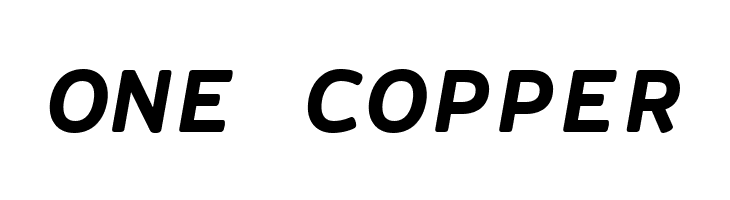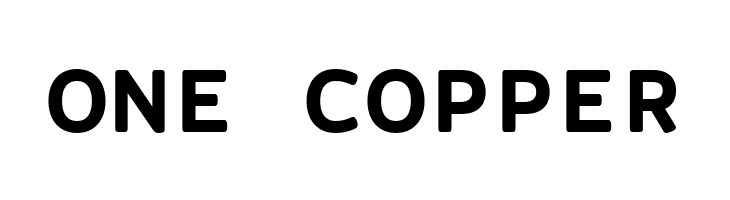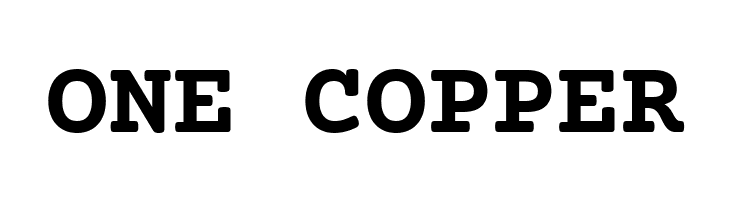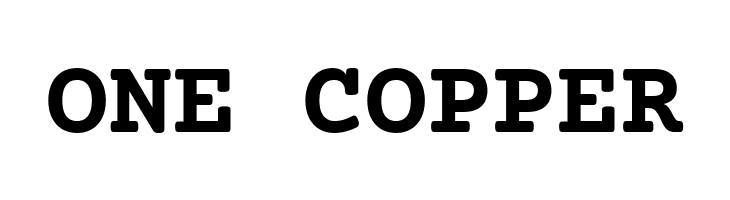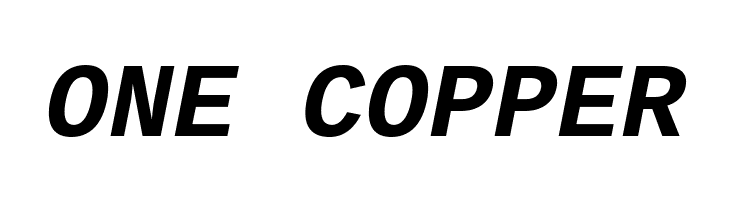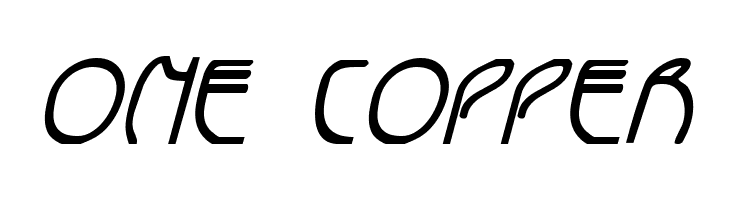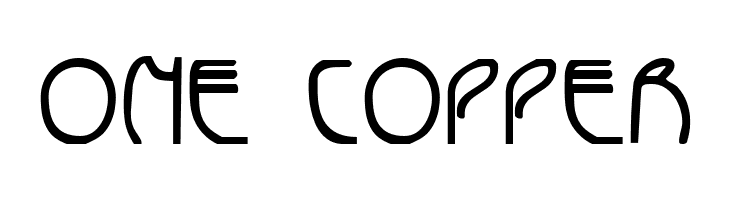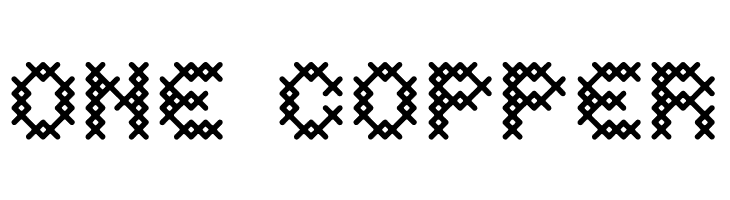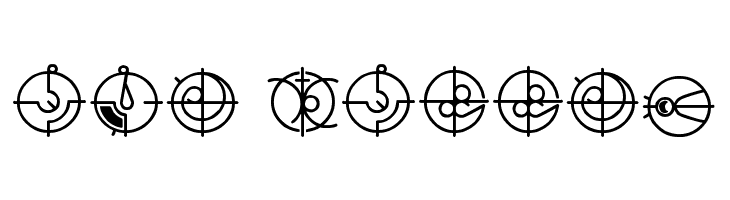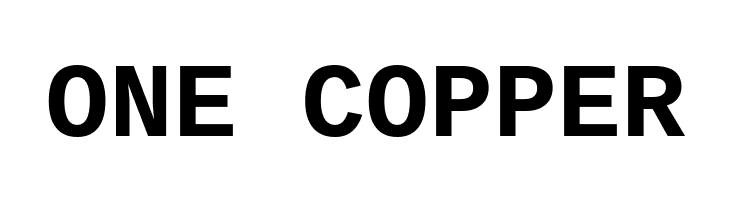
A bold, playful font with rounded edges and a hand-drawn feel.
A bold, futuristic font with geometric and rounded forms.
A bold, angular, and dynamic font with a modern, edgy style.
A bold, italicized font with sharp angles and dynamic energy.
A bold, monospaced font with a classic typewriter style.
A bold, italicized monospaced font with a classic typewriter style.
A bold, monospaced sans-serif font with a modern and clean design.
A bold, italic, monospaced sans-serif font with clear, evenly spaced characters.
A bold, monospaced font with a classic typewriter style.
A bold, italic monospaced font with a classic typewriter style.
A bold, monospaced font with a clean and modern design, ideal for coding.
A bold, italicized font with strong legibility and modern appeal.
A bold, italicized font with a modern and clean design.
A bold, modern sans-serif font with clean lines and smooth curves.
A bold, classic serif font with strong vertical emphasis and pronounced serifs.
Bold, italicized serif font with a dynamic and elegant style.
A bold, condensed serif font with strong vertical emphasis and elegant serifs.
A bold, italic, and condensed font with a modern yet classic style.
A bold, slab serif font with strong, well-defined characters and a vintage touch.
A bold, italic serif font with high contrast and dynamic elegance.
A bold serif font with strong strokes and classic appeal.
A bold, italicized serif font with strong, dynamic strokes.
A bold, condensed font with a strong, elegant presence.
A bold, italic, and condensed font with high contrast and tight spacing.
A bold, expanded serif font with strong strokes and a modern yet classic feel.
A bold, italic serif font with an expanded width and dynamic style.
A bold, italic serif font with strong strokes and a dynamic slant.
A bold, decorative font with a geometric and futuristic style.
A bold, italic Art Deco-inspired font with geometric flair.